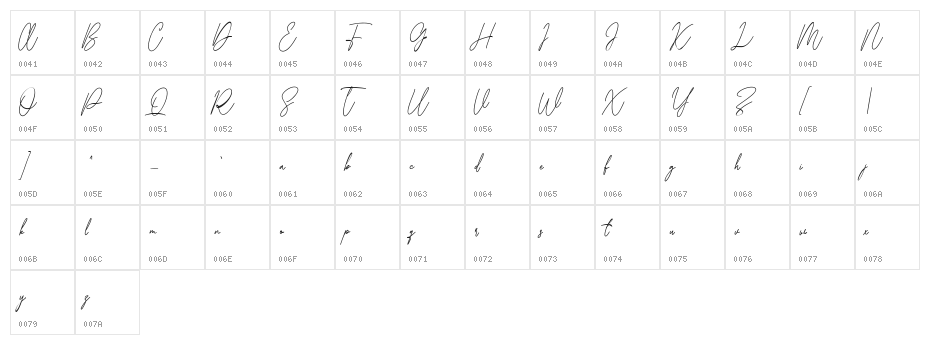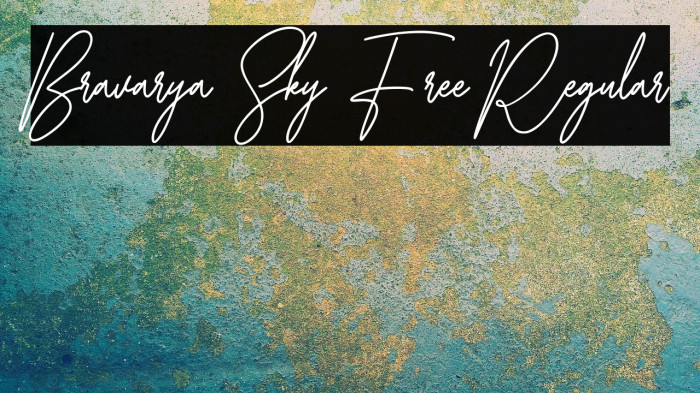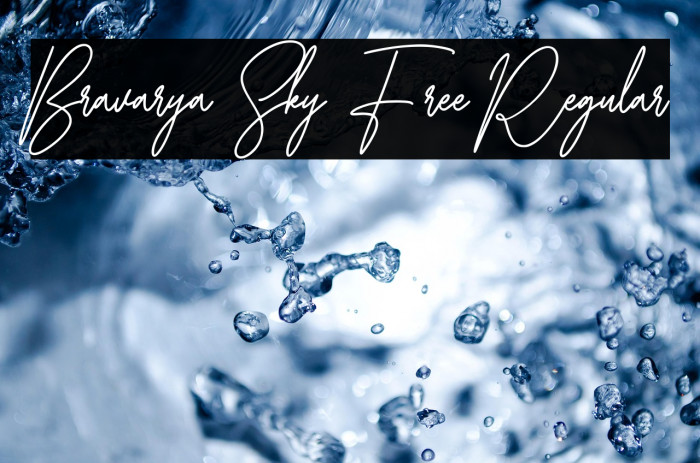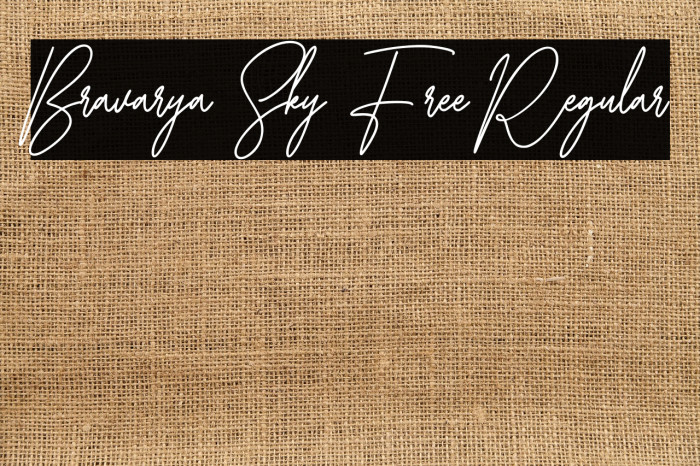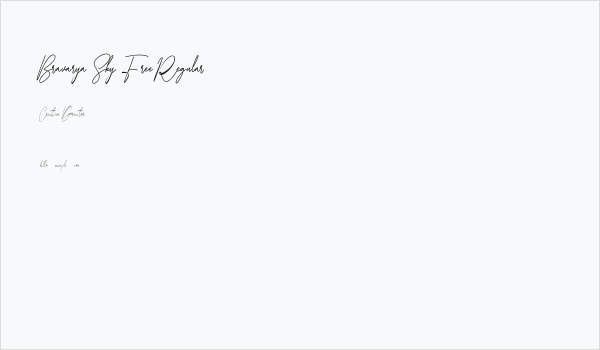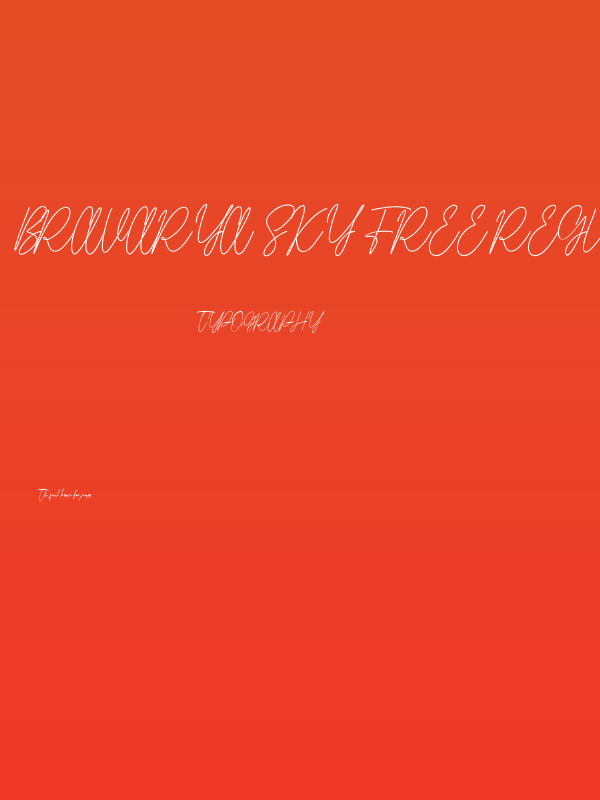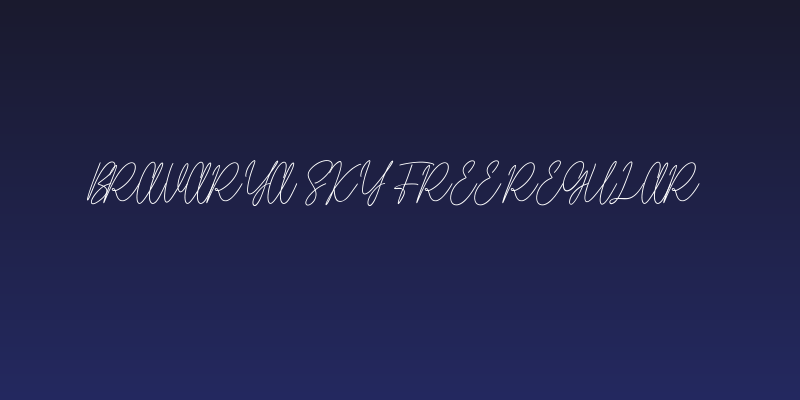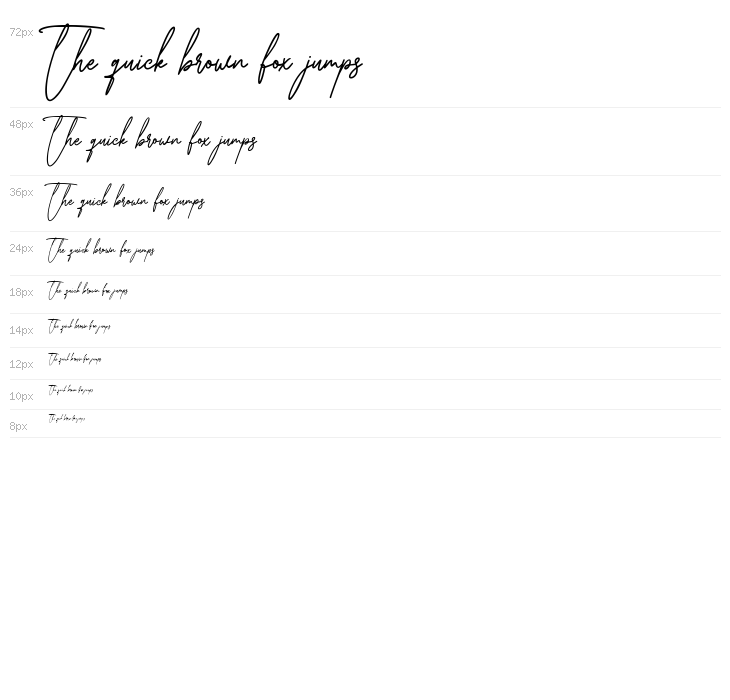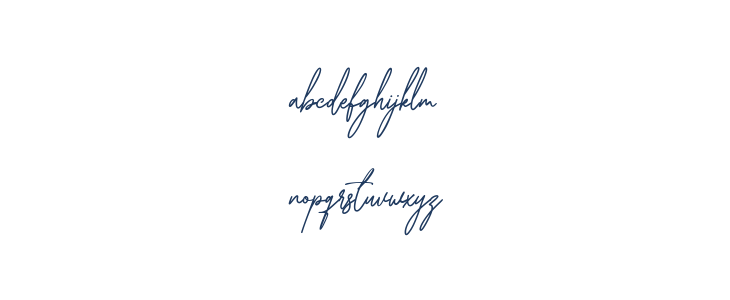
Bravarya Sky Free Regular Font
Bravarya Sky Free Regular Description
This font features an elegant, flowing script style that mimics the fluidity of natural handwriting. The characters are interconnected with smooth, continuous strokes, giving it a cohesive and harmonious appearance. The uppercase letters are slightly larger and more elaborate, while the lowercase letters maintain a consistent, graceful form. The overall design is delicate and airy, with a light touch that adds sophistication and charm. This font is ideal for projects that require a personal, artistic touch, such as invitations, greeting cards, and branding materials. Its refined style makes it suitable for conveying elegance and creativity.
| Overall Style | Elegant, Artistic |
| Use Case | Headlines, Artistic projects, Invitations |
| Proposed Projects | Ideal for invitations, greeting cards, branding materials, and artistic projects. |